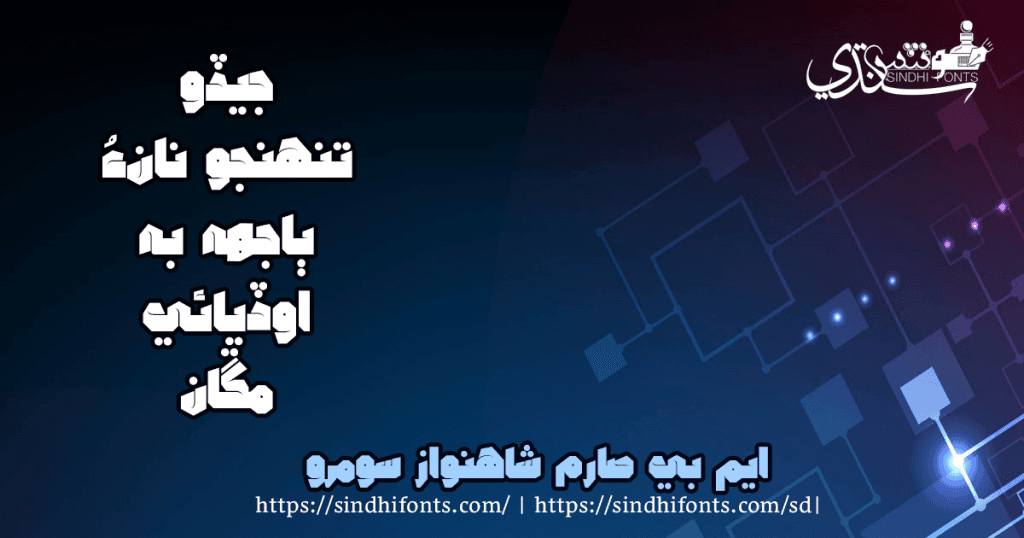
MB Sarem Shahnawaz Soomro
MB Sarem Shahnawaz Soomro is a Sindhi Font for your designs particularly for the headings. It confirms the latest Unicode standards also. MB Sarem Shahnawaz Soomro is free of charge to download and install on your computer.